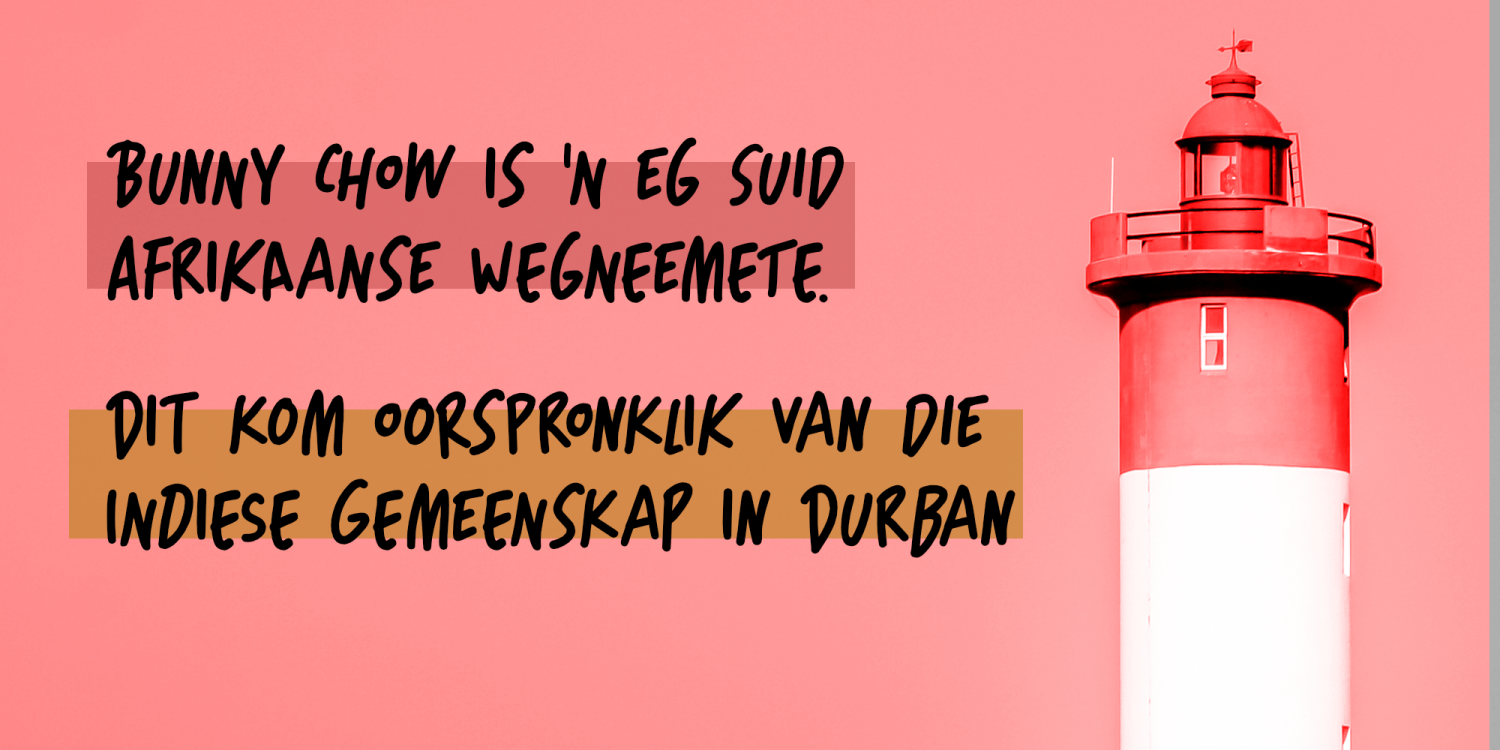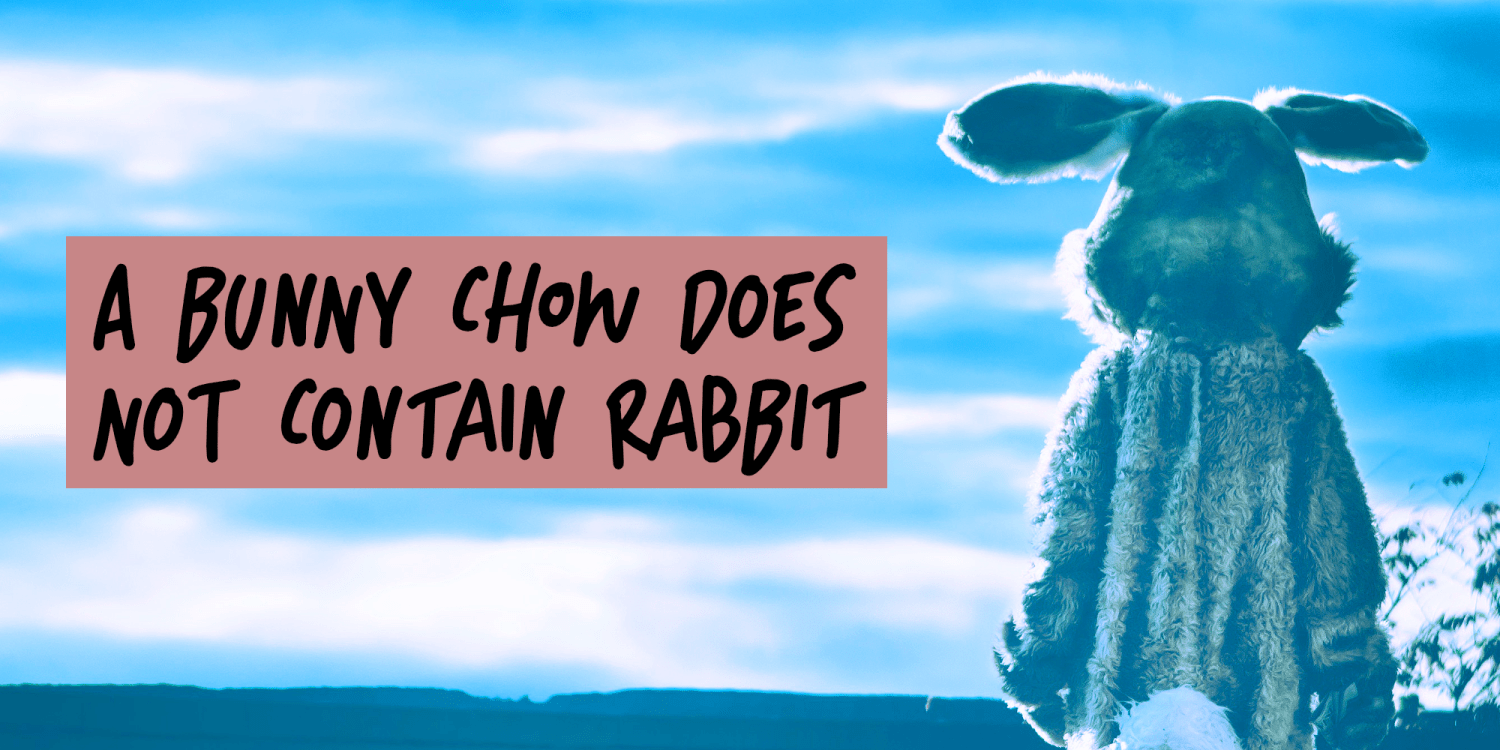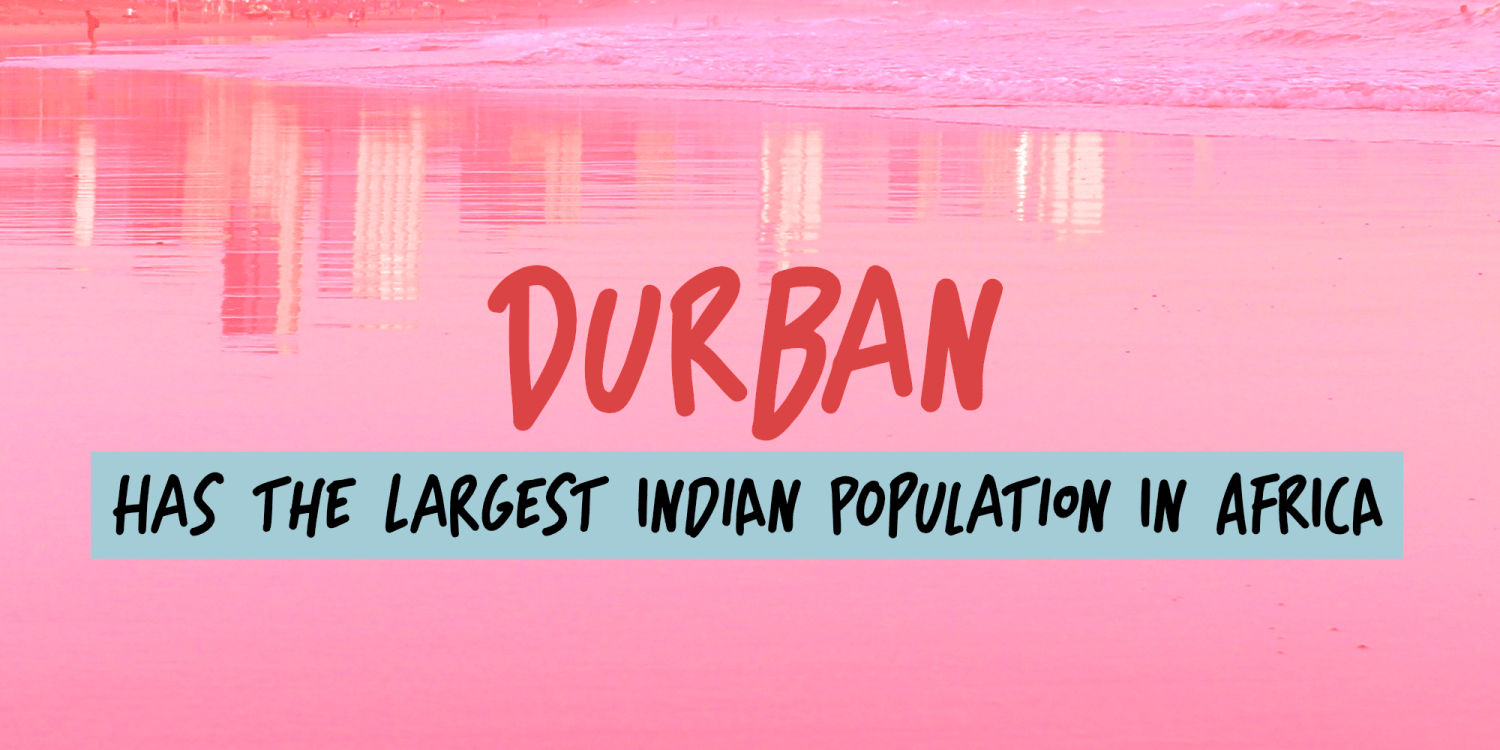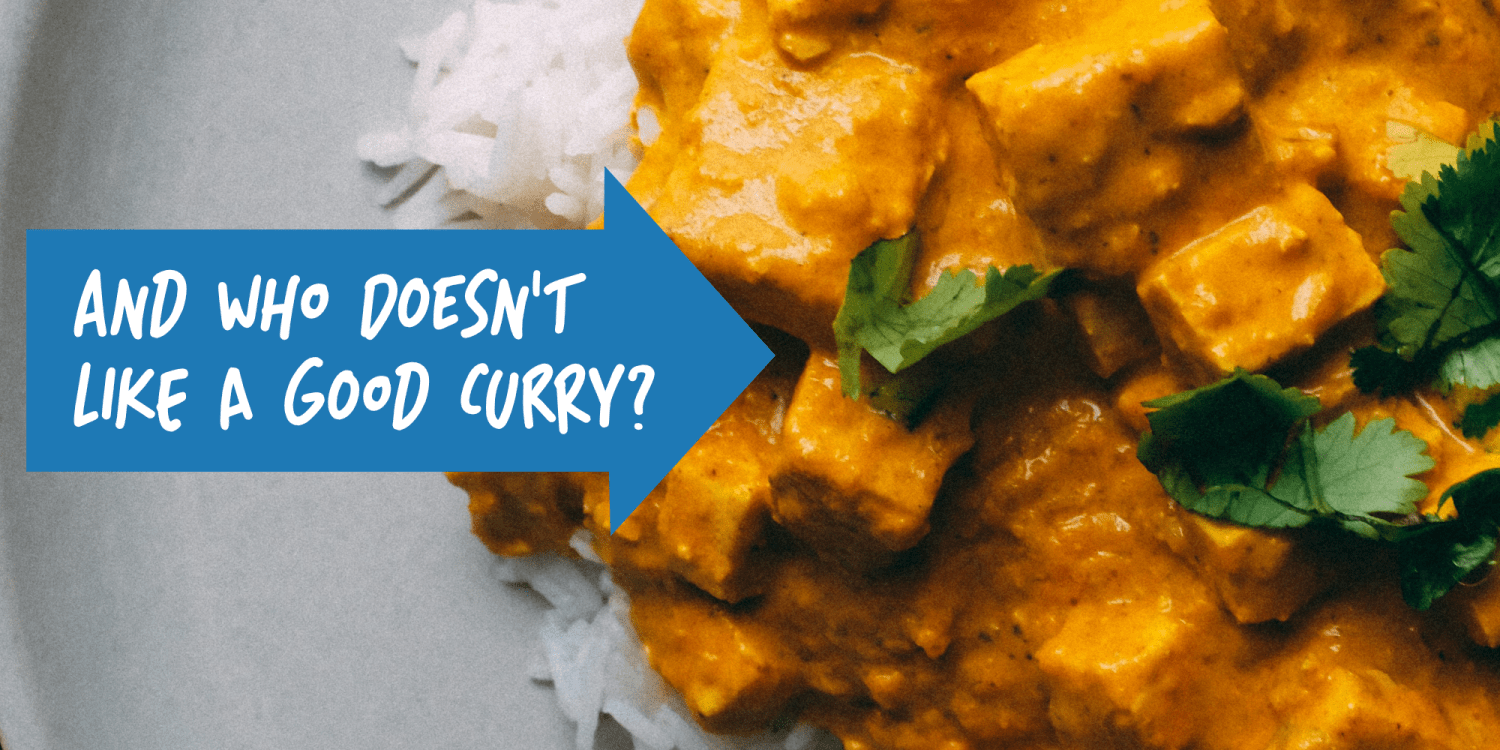
Bunny Chow
Bunny Chow is a loose, handwritten script with a wobbly, off-baseline feel that gives it an energetic, slightly unruly personality. The strokes feel casual and hand-drawn, making it a strong fit for work that wants to look playful, expressive, and a little bit streetwise rather than polished or formal.
With both Regular and Italic styles included, this family gives you a simple way to add movement and variation across packaging, product graphics, websites, and other display-driven layouts. Its cartoonish, scribbled character also makes it well suited to fun branding, attention-grabbing headlines, and creative projects that benefit from a relaxed, hand-made touch.